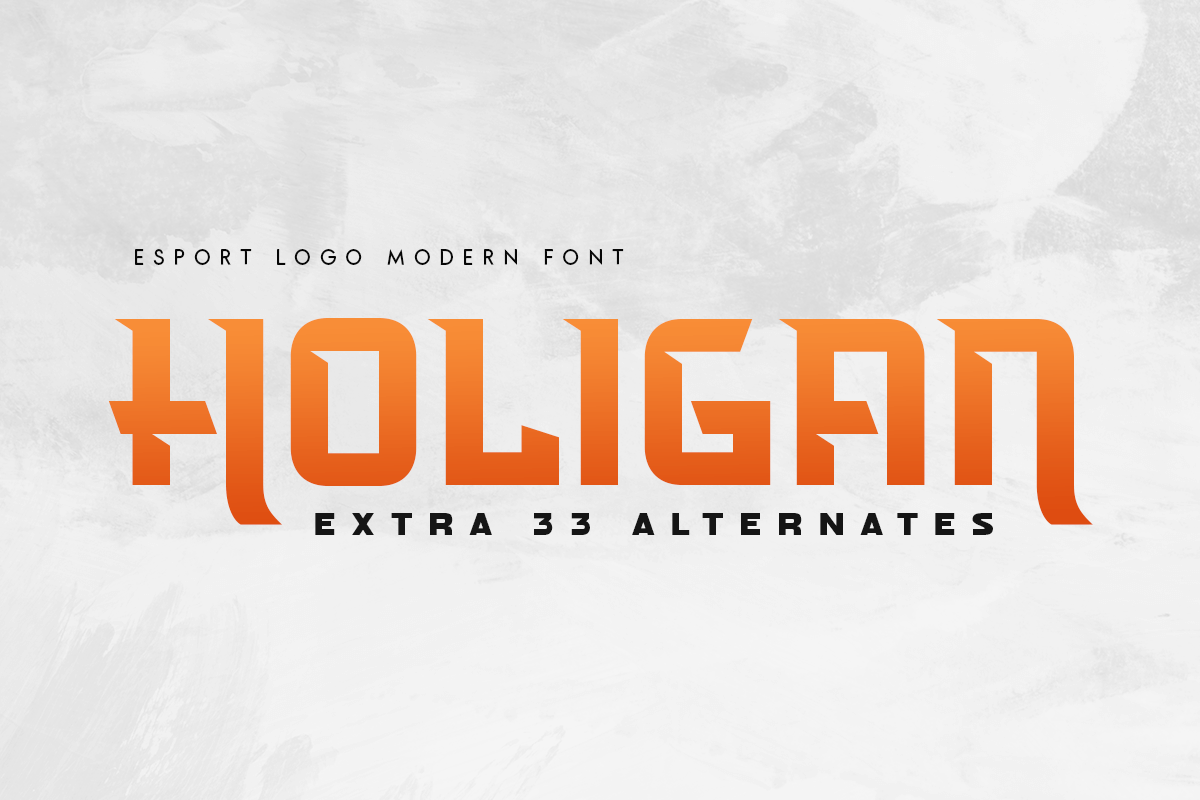
Holigan
Holigan is a Modern Sport font that created special for Branding, Title and more stand out typography needs, with extra alternative styles that make your design more memorable. It’s so perfect to add your style and headline overview for sport, technology, actions, and fighting theme. And specially for this font, we crafted for bold action style and modern feels so enjoy to create any project that will show your main idea out.
4 Font variation characters prepared to get creative alternatives
Preview as a inspirations that you can do with Holigan font